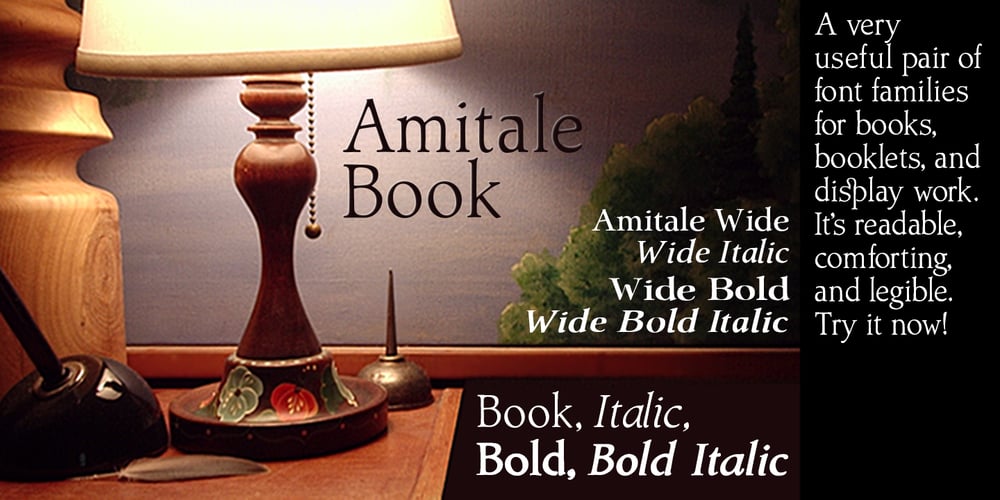
Amitale Font Family was designed by David Bergsland and published by Hackberry Font Foundry. Amitale contains 8 styles and family package options. Amitale (A-mi-tah’-lay) is the union of Amitale Book and Amitale Wide into a new 8-font book family in my continuing objective of designing a better font family for readability in booklets. My goal here is for a full range of styles from light, regular, bold, and black without the plugged counters and clunky feel of most bold fonts. In my use, personally. I do not use Amitale Book Bold. I use Wide for the bold and Wide-Bold for the black style. In many ways, Amitale is Brinar with bracketed serifs. Many people find Brinar to be an exceptionally readable and beautiful humanist sans. This new serif font family has many of the same characteristics. This is also the debut of my new OpenType features set for 2009. There are more and more ligatures for your fun and enjoyment: bb gg ff fi fl ffi ffl ffy fj ft tt ty Wh Th and more. Like all of my fonts, there are: caps, lowercase, small caps, proportional lining figures, proportional oldstyle figures, & small cap figures, plus numerators, denominators, superiors, inferiors, and a complete set of ordinals 1st through infinity.